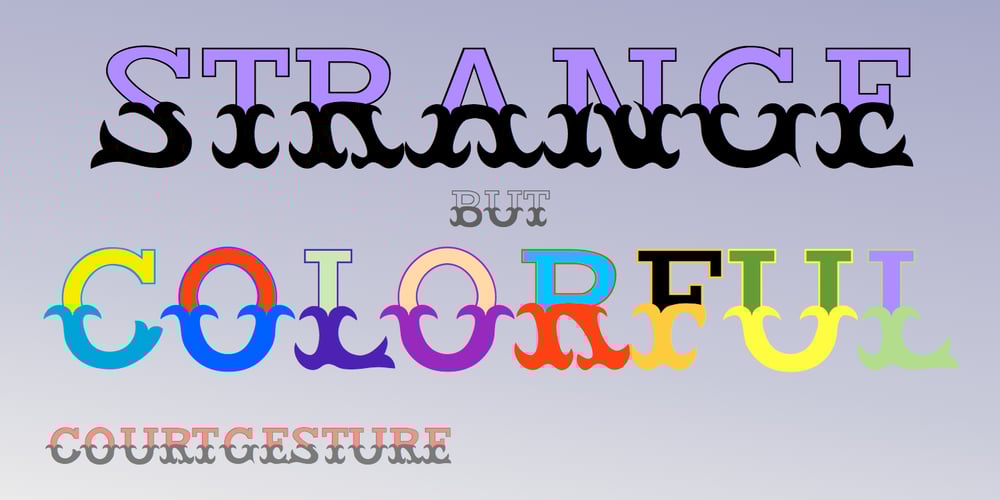
CourtGesture Font Family was designed by Robert Schenk and published by Ingrimayne Type. CourtGesture contains 5 styles and family package options. The CourtGesture family fonts are zany, absurd, whimsical typefaces that were inspired by nineteenth century faces that have one style on the top and another on the bottom. They are rather crudely drawn. The CourtGestureInside style was designed to be layered over letters of CourtGesture to fill in the tops with color.